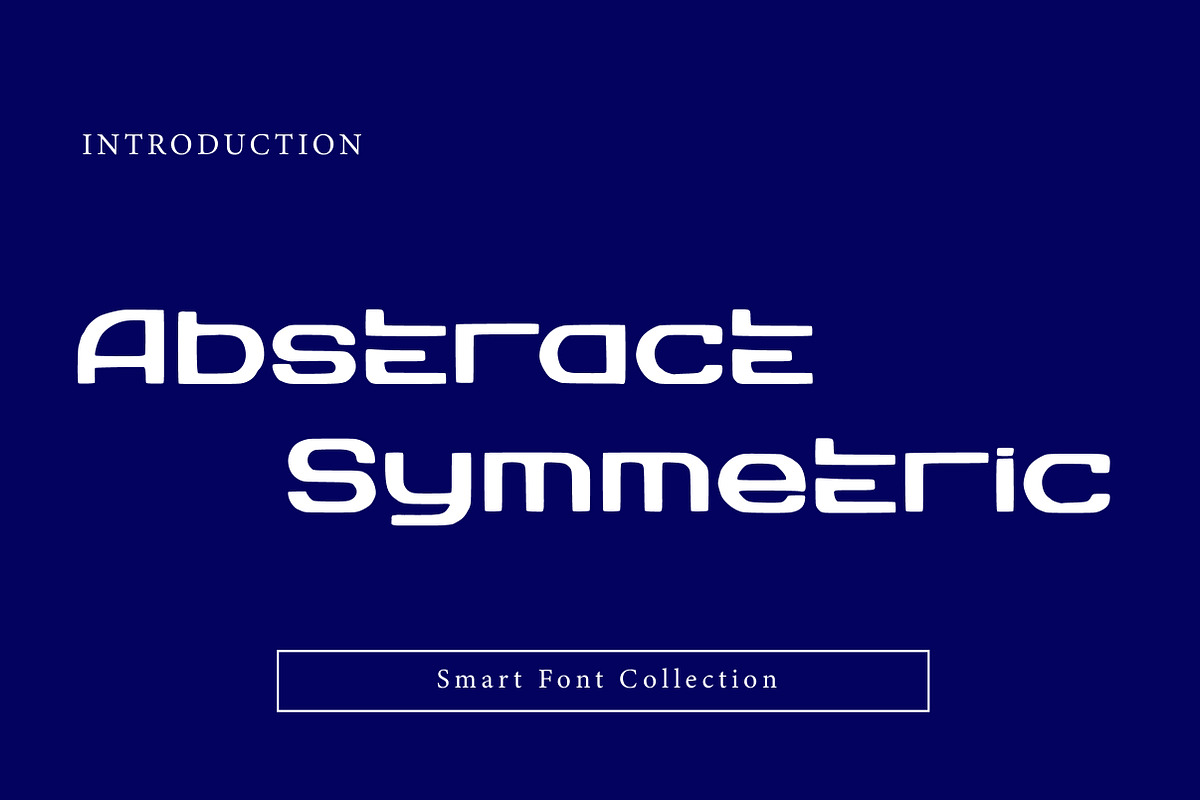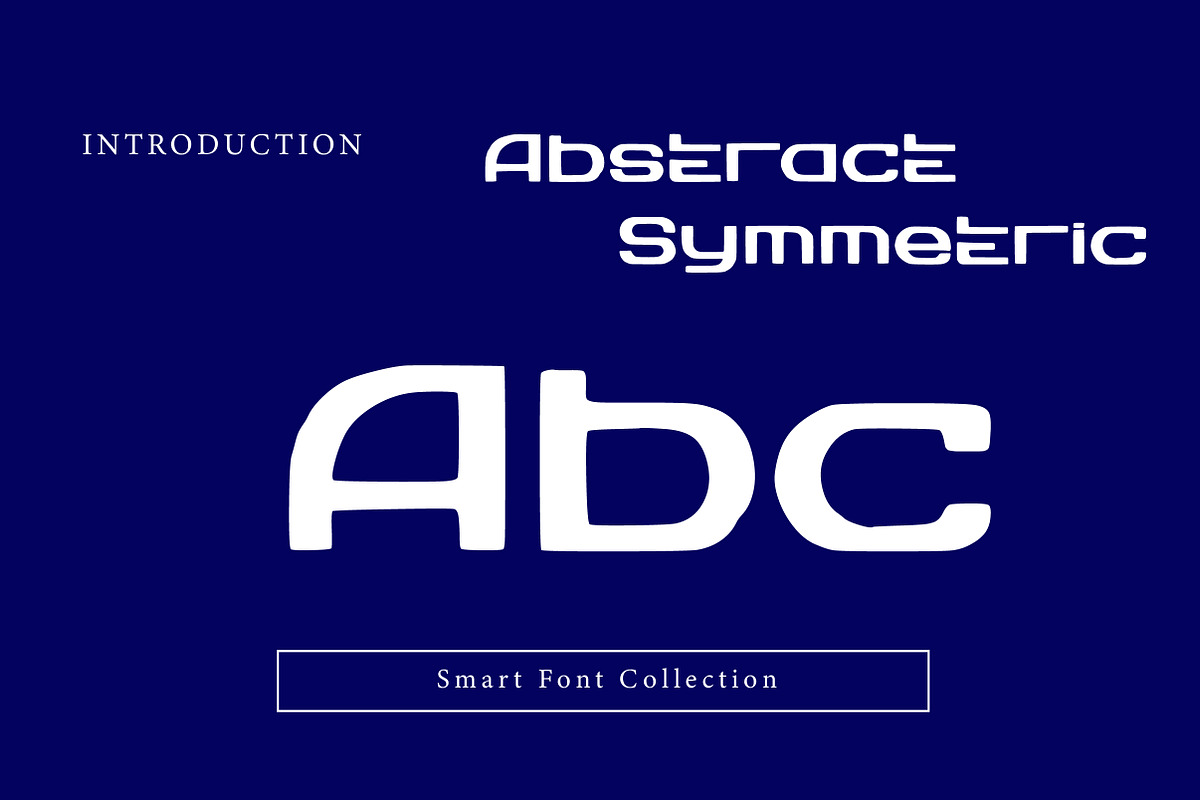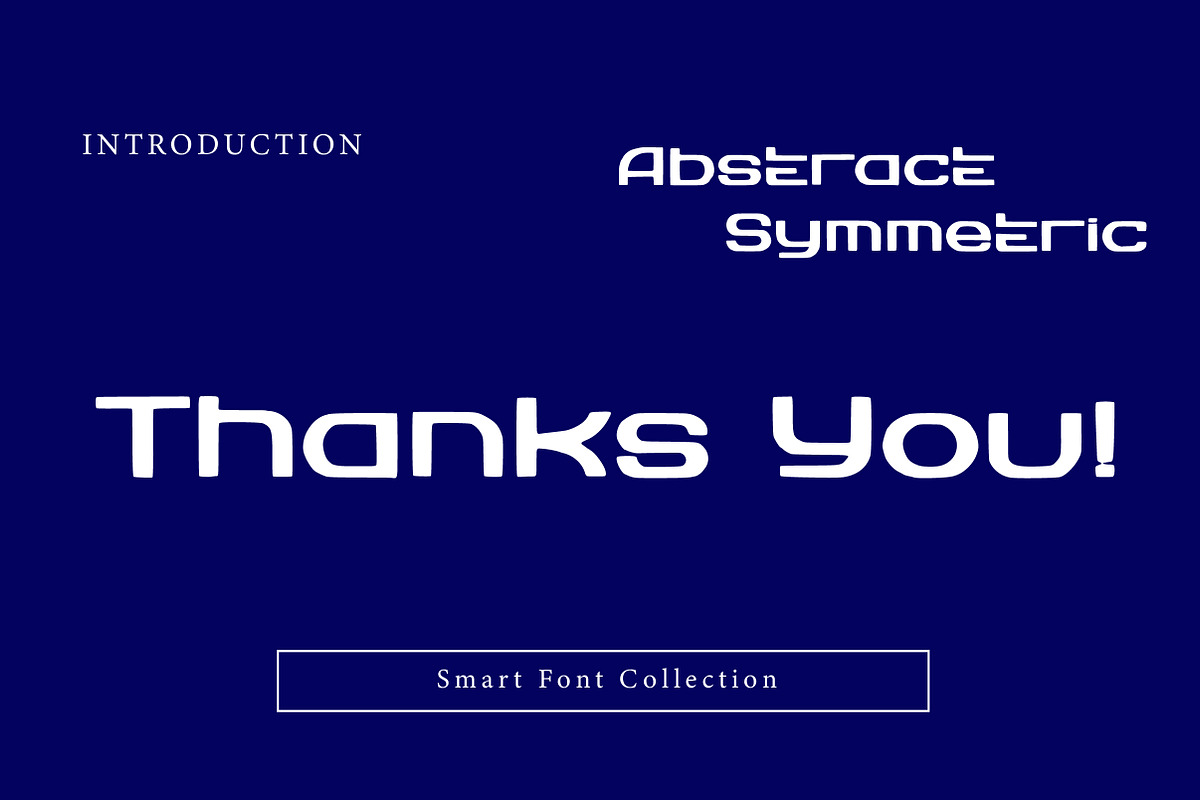
Abstract Symmetric
Abstract Symmetric is a modern, futuristic, and geometric display typeface designed with strong symmetry and clean structural balance. Each letterform features sharp edges and abstract shapes that create a bold, high-tech visual identity. This font is ideal for logos, technology branding, gaming titles, sci-fi designs, posters, UI headings, and modern digital artwork. Its unique symmetrical construction delivers a powerful, innovative, and professional look that stands out in contemporary graphic design projects.